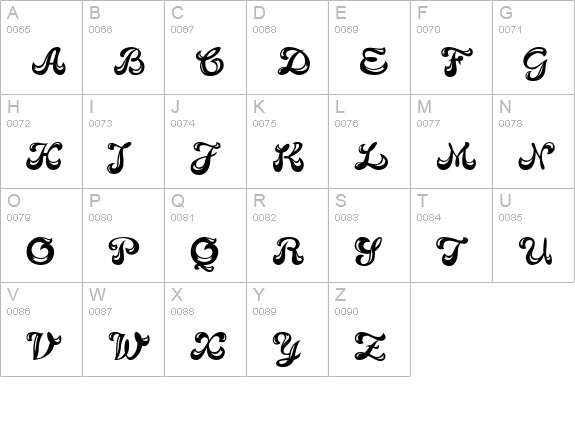
Candy Bold Font Details
Candy Bold is a strong, high-contrast variant in the Candy typeface family \xE2\x80\x94 well suited to headlines, attention-grabbing titles, and strong calls-to-action.
Introducing Candy Bold font, a delightful and playful typeface that is sure to sweeten up your designs! This charming font exudes a sense of fun and whimsy, making it perfect for a variety of projects, from party invitations to candy packaging. Candy Bold font features bold and eye-catching letterforms, with a slightly rounded shape that adds a touch of warmth and friendliness. Its bold strokes make it stand out in headlines and logos, while still maintaining excellent readability. Best of all, Candy Bold font is available for free download at FontsMarket.com, making it easily accessible for all your creative endeavors. Add a pop of sweetness to your designs with Candy Bold font today!